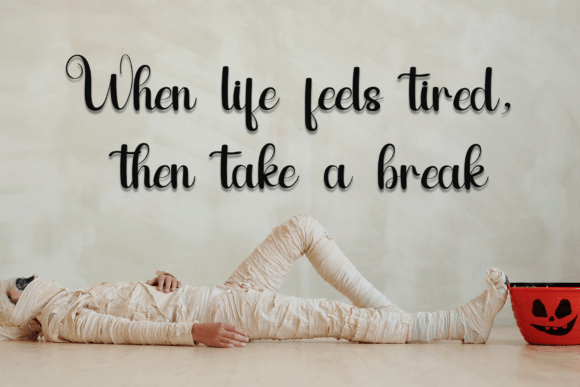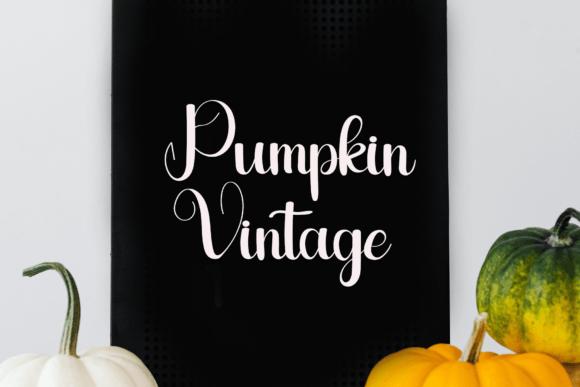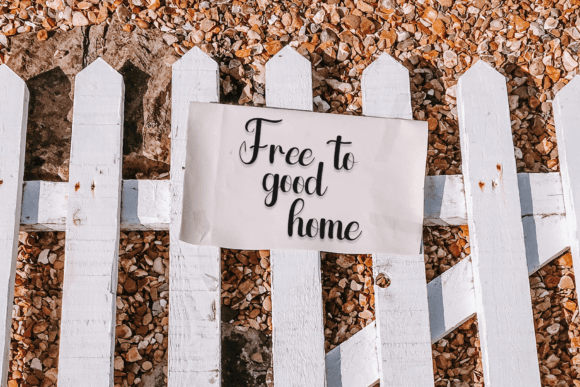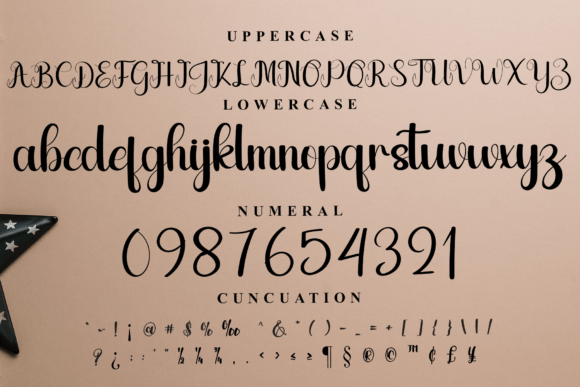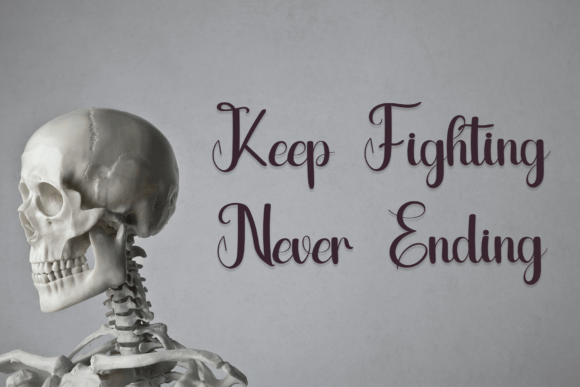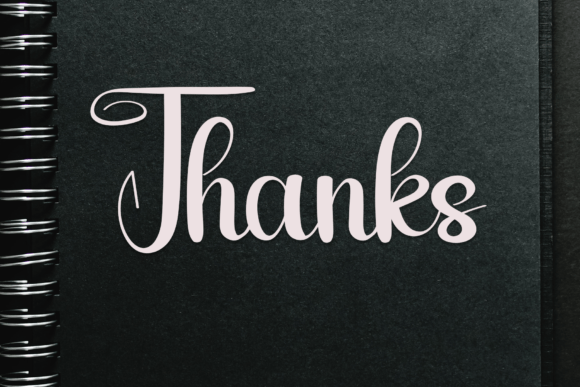
Introduction to Day Halloween Font
Do you ever find yourself browsing through design inspiration boards, searching for the perfect font to elevate your creative project? That’s exactly what happened to me a few weeks ago, when I stumbled upon the enchanting Day Halloween Font. As I gazed at its elegant, handwritten script, I couldn’t help but feel a spark of excitement. Its unique style and timeless charm immediately caught my attention, making me want to learn more about this hidden gem.
As designers, we’re always on the lookout for high-quality design resources that can help us bring our ideas to life. The Day Halloween Font is definitely a valuable addition to any design arsenal, offering a beautiful and versatile solution for a wide range of creative projects. Whether you’re working on a spooky Halloween design or a fall-themed project, this font is sure to add an extra layer of sophistication and style.
One of the things that sets the Day Halloween Font apart from other fonts is its ability to work seamlessly with transparent backgrounds, making it perfect for designers who want to create stunning, high-quality designs that truly pop.
Key Features of Day Halloween Font
- Unique and creative design perfect for Halloween-themed projects
- High-quality font with a transparent background, ideal for use in creative projects
- Perfect design resource for creating spooky and fun graphics, logos, and text effects
- Easy to use and customize, making it a great addition to any design project
Honest Review: Day Halloween Font
I recently had the opportunity to try out the Day Halloween Font, and I must say it’s been a game-changer for my creative project. The font is perfect for adding a spooky touch to any design without being too overwhelming.
- ✨ High quality design: The font is crisp and clear, making it perfect for any design project.
- ✨ Versatile: The Day Halloween Font can be used for a variety of projects, from invitations to social media graphics.
- ⚠️ Limited styles: The font only comes in a few styles, which may limit its versatility for some designers.
- ⚠️ Not ideal for transparent background: The font may not be the best choice for designs that require a transparent background, as it can be difficult to achieve a seamless look.
For optimal results, use the Day Halloween Font in conjunction with other design elements, such as spooky graphics and eerie backgrounds, to create a cohesive and engaging design.
The Day Halloween Font is ideal for creative projects, such as invitation design, party decorations, and spooky themed posters. You can also use it to add a touch of whimsy to your social media graphics and blog posts.